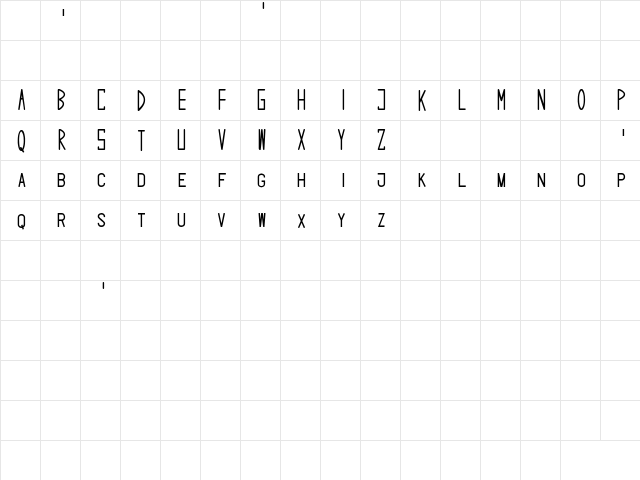
Ghostbusters Nametag Regular
Design Context for Ghostbusters Nametag Typeface
Ghostbusters Nametag takes a measured approach to typography — its balanced proportions and neutral character make it a reliable workhorse for both digital and print work.